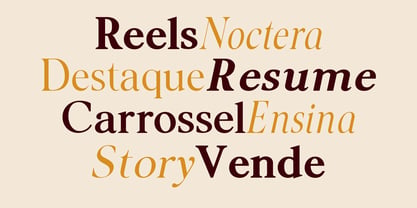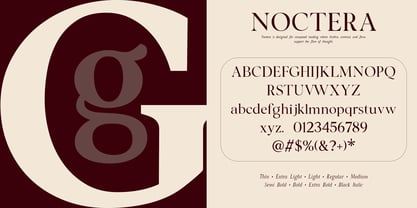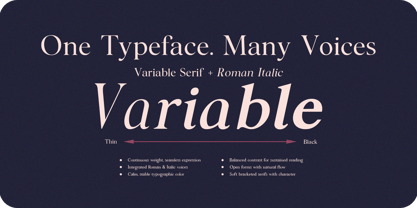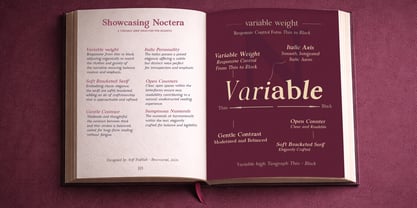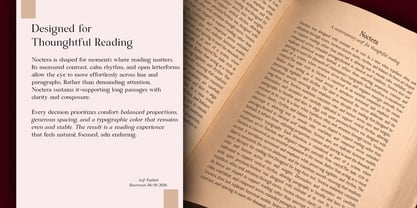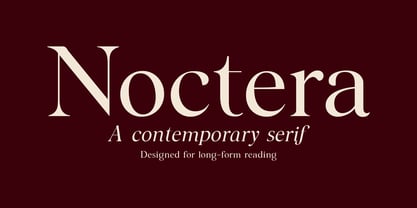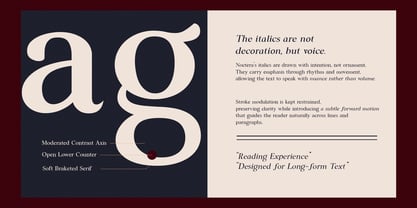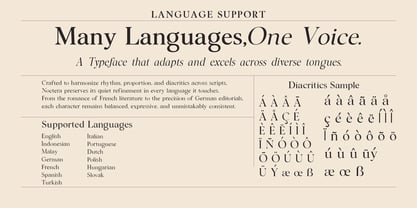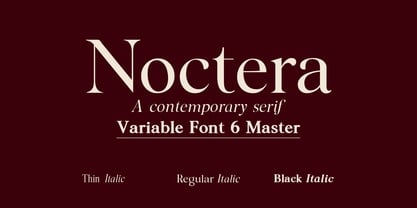
Noctera Variable
by Luhop Creative
The Noctera Variable Font Family was designed by Arif Fadilah and published by Luhop Creative. Noctera Variable contains 2 styles and family package options. More about this family
Noctera is a refined variable serif typeface designed for editorial, literary, and brand-driven typography. Inspired by the quiet elegance of classic book typography and reinterpreted through a contemporary lens, Noctera balances tradition and modern clarity. With its carefully modulated contrast, confident serifs, and expressive details, Noctera performs beautifully in long-form reading as well as in display applications. The variable weight axis allows designers to fine-tune typographic color and hierarchy with precision, making it suitable for novels, magazines, branding, and sophisticated digital interfaces. Noctera is not an imitation of historical serif models; it is a modern serif with its own voice—calm, articulate, and timeless. Noctera Variable features a continuous weight axis, enabling smooth transitions from light to heavy weights within a single font file. This flexibility allows precise typographic control while reducing file management complexity.
Designers: Arif Fadilah
Foundry: Luhop Creative